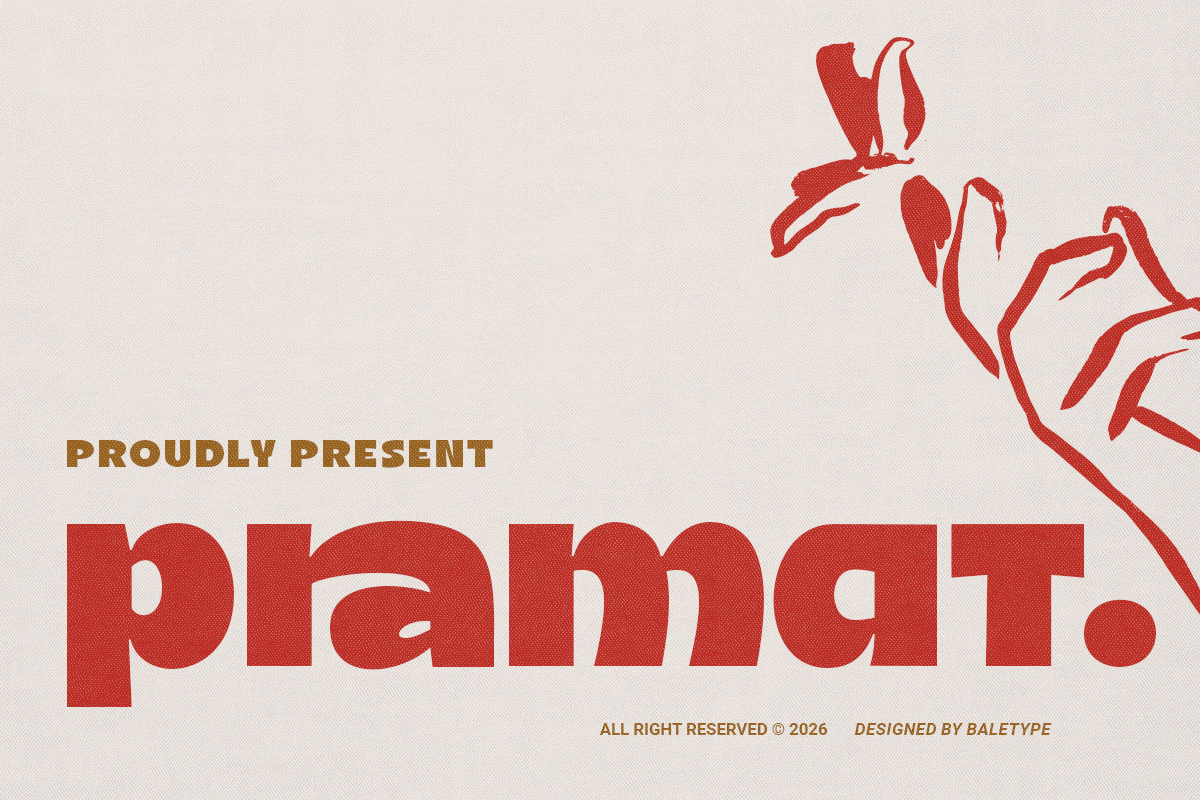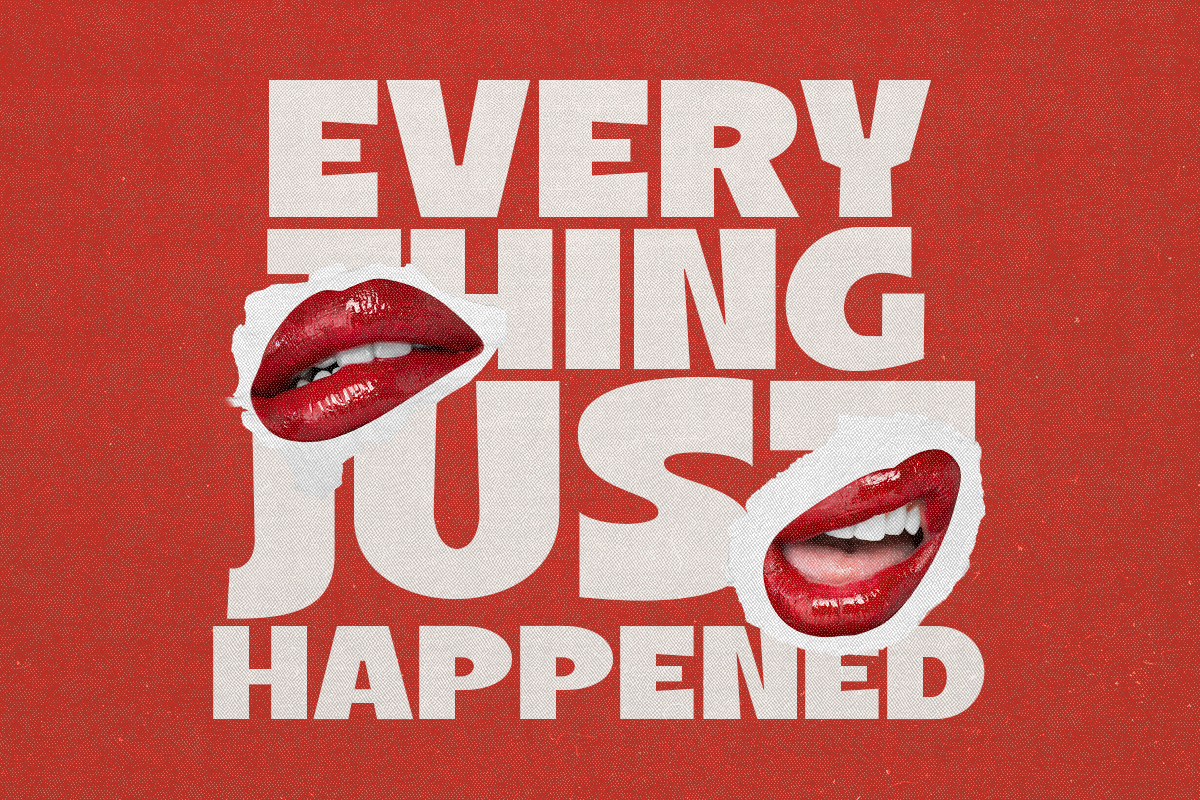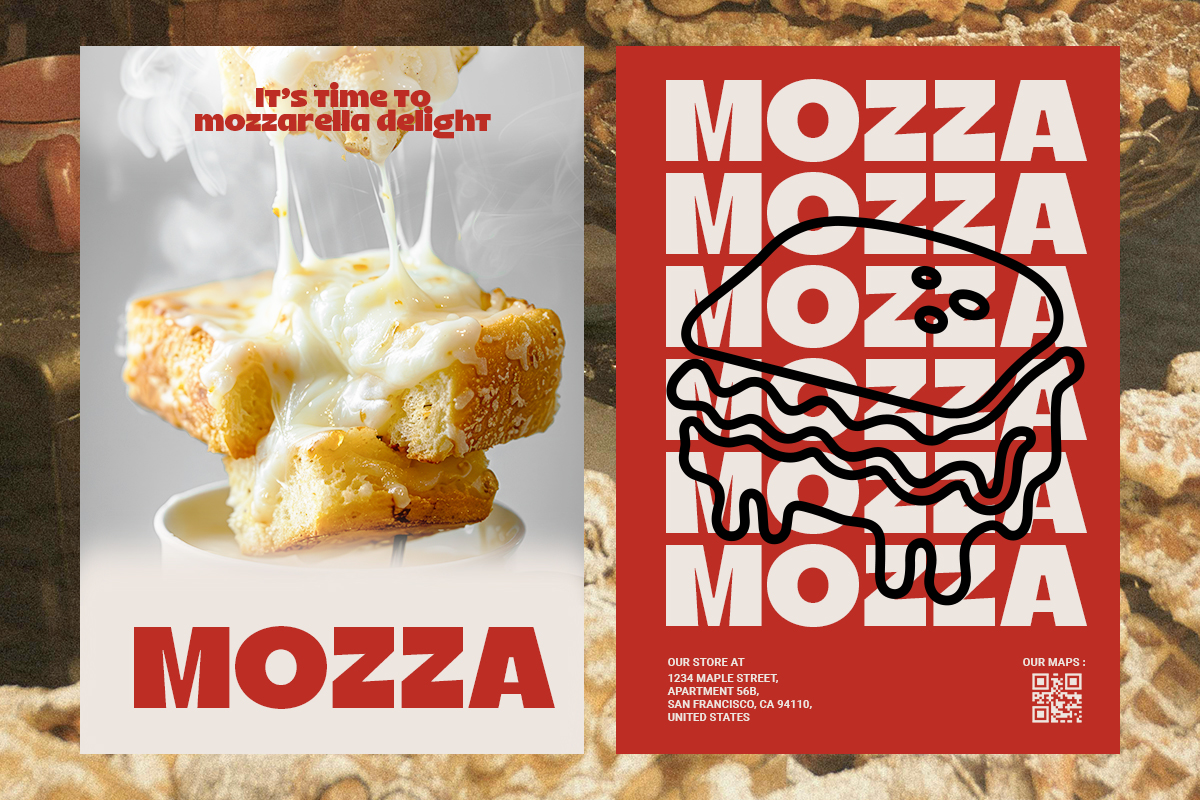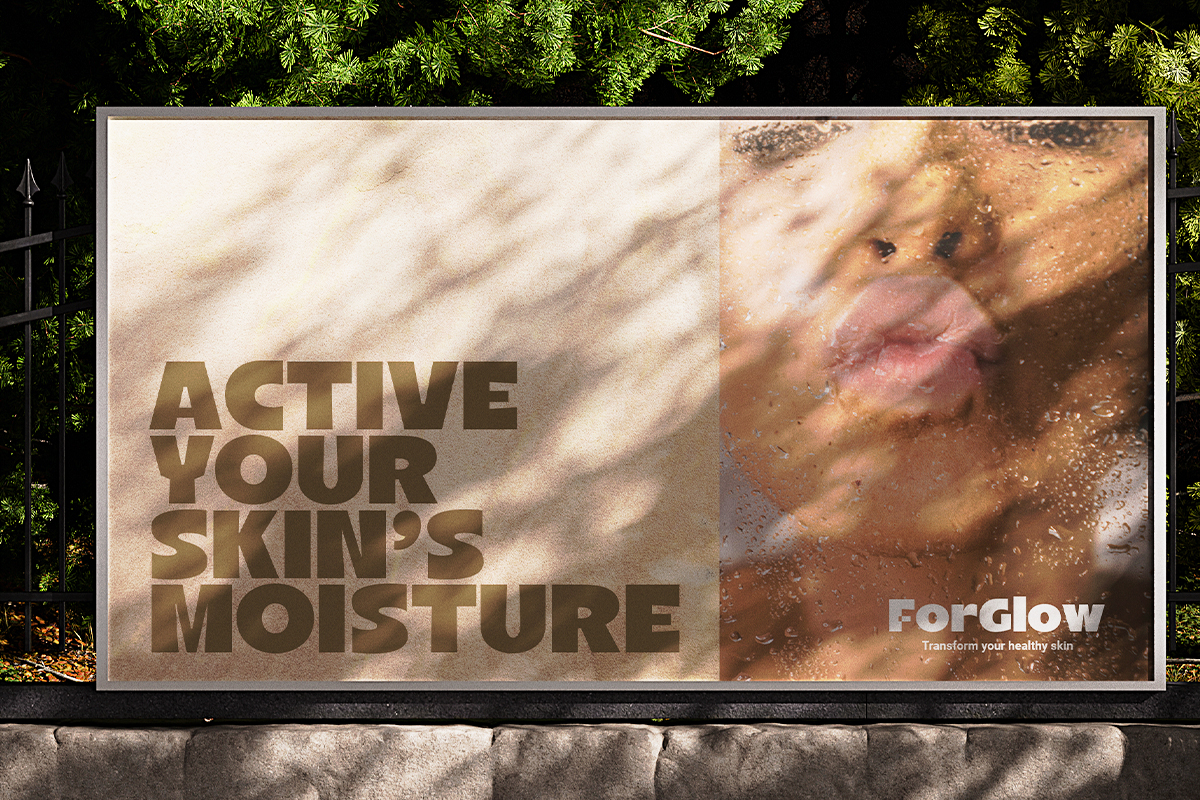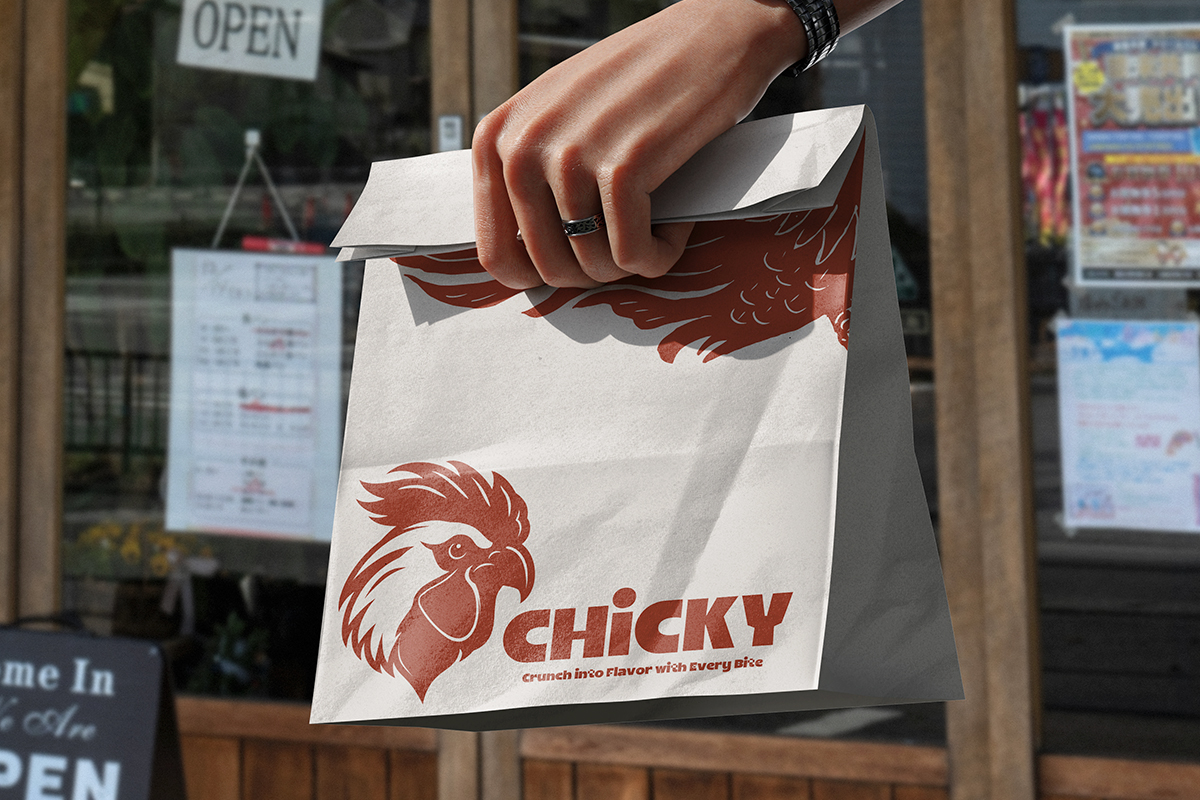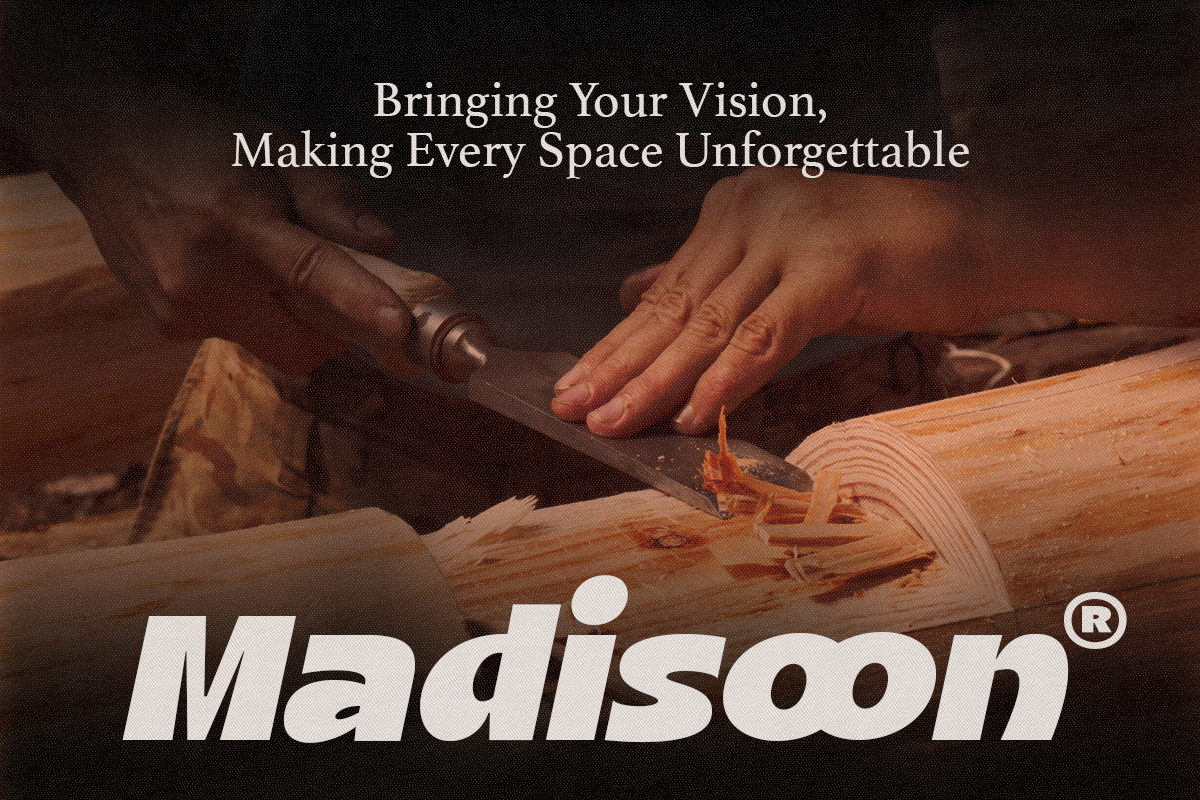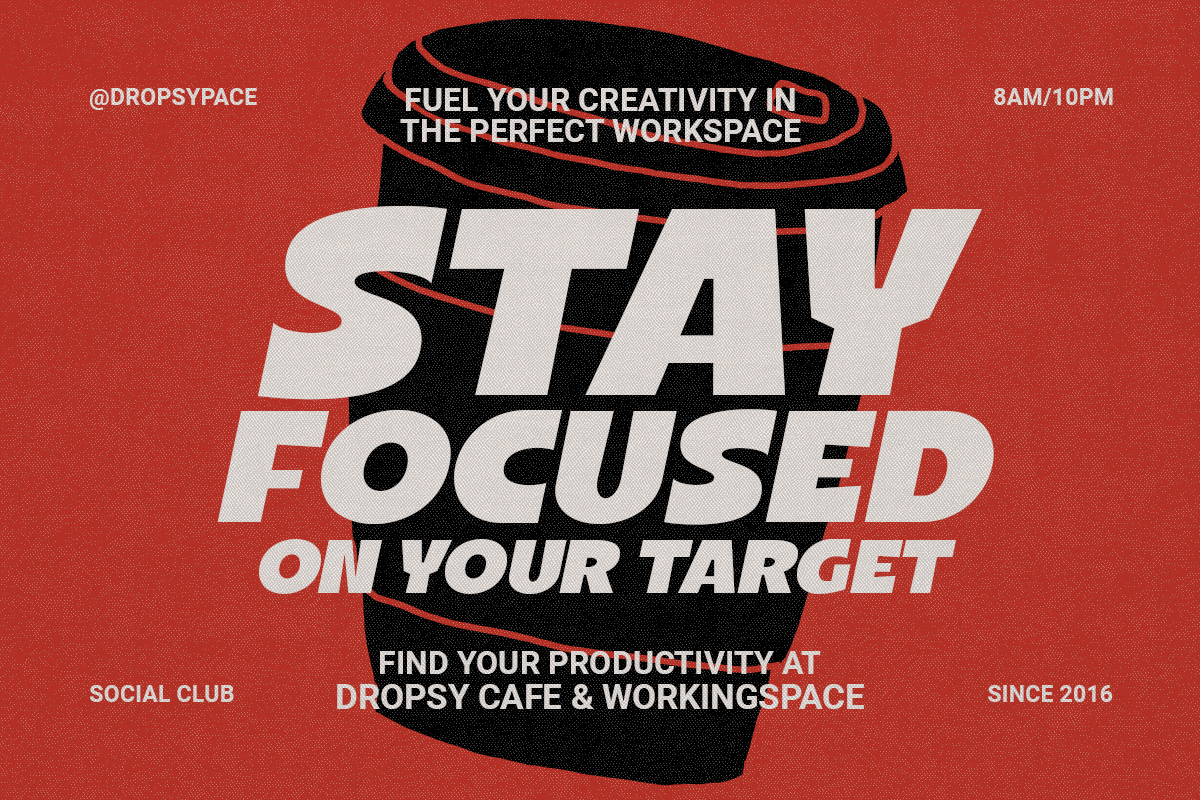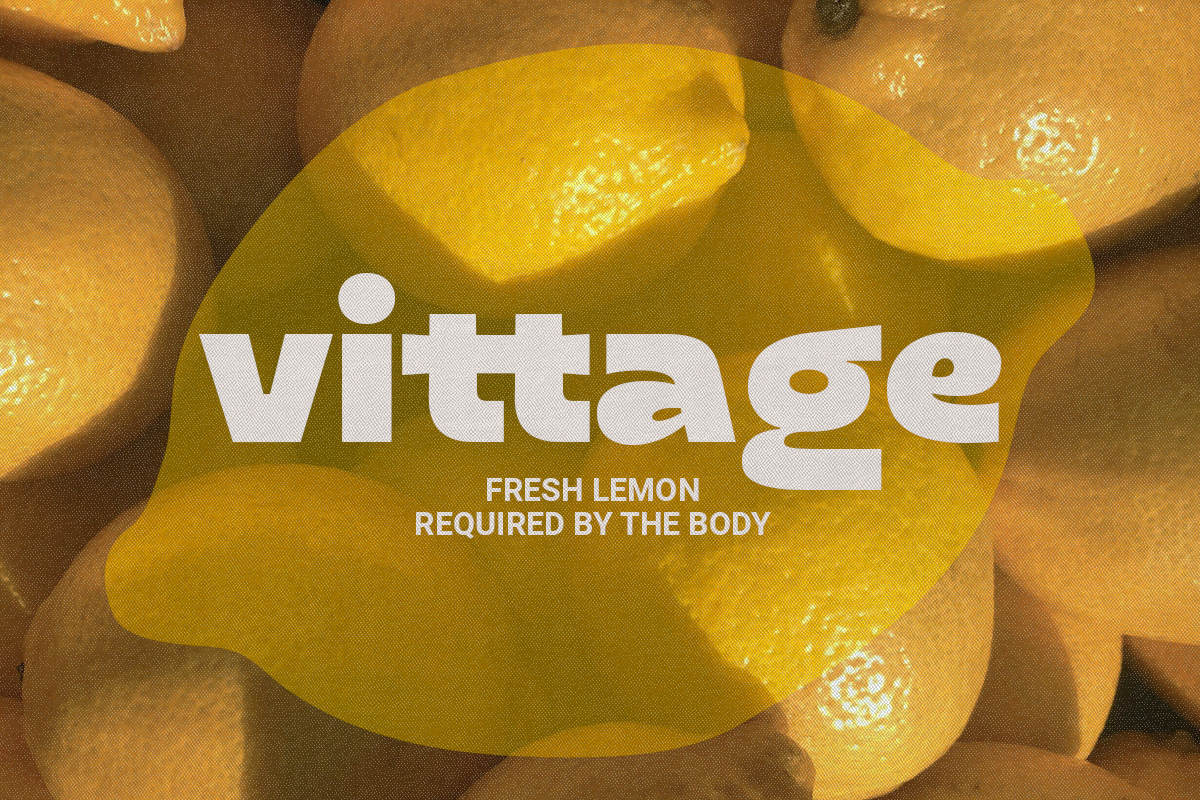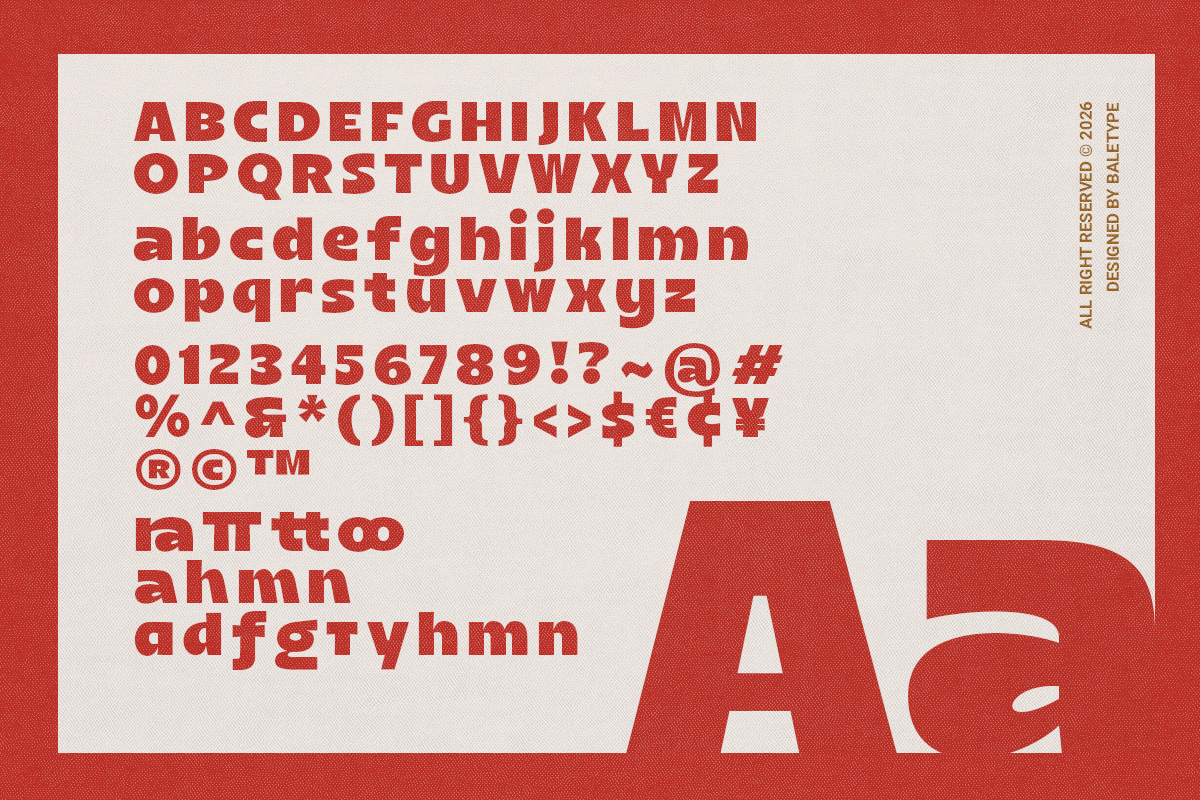
Pramat - Bold Display Sans
Pramat is a modern bold sans with stylish looks. You can use this font for any purposes that needs strong and fancy vibes such as poster, logotype, cafe design, quotes, and branding. With alternates and ligatures, this font will make your design more standout. This font also support multi language!
Pramat – Bold Display Sans
Pramat is a modern bold sans with stylish looks.